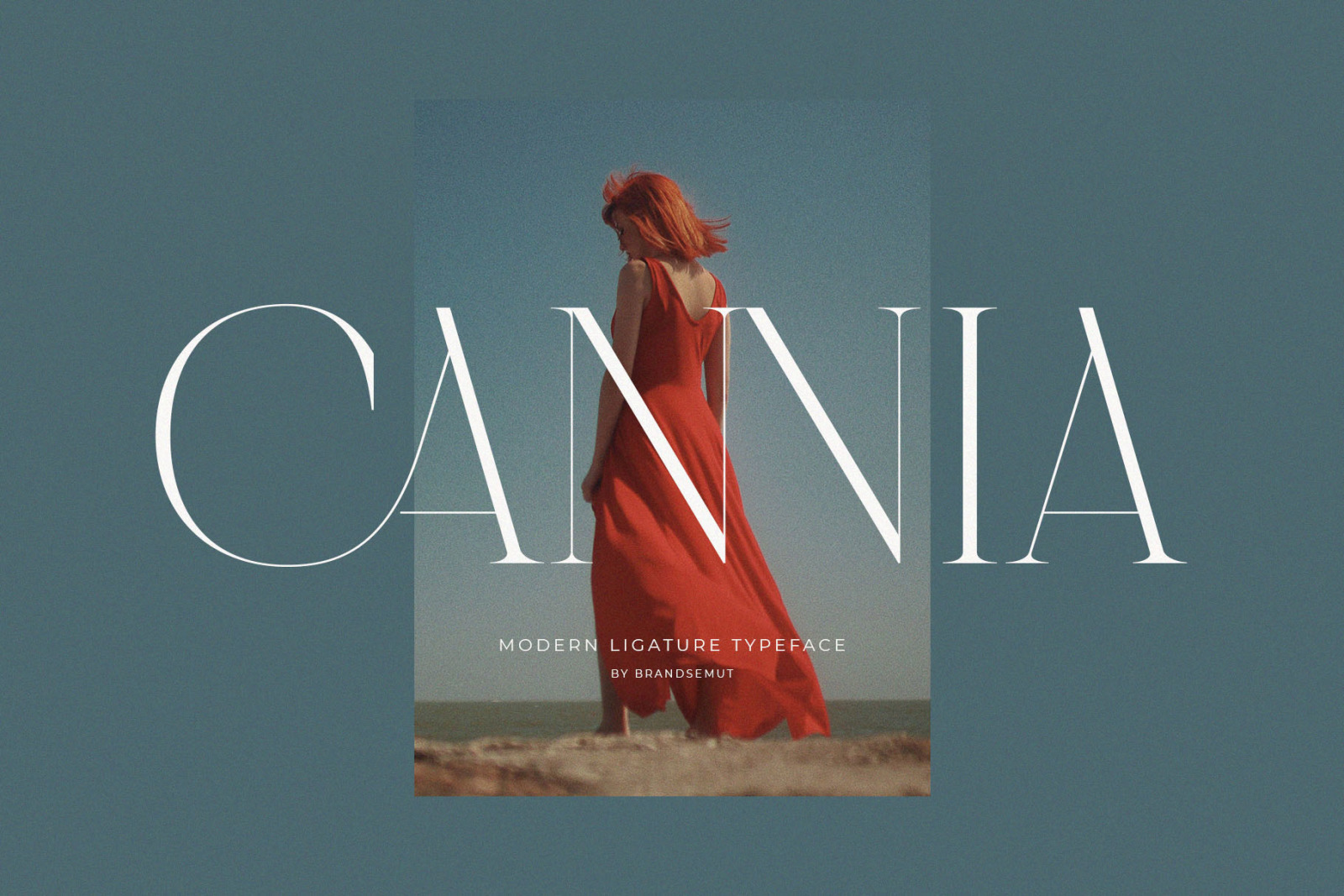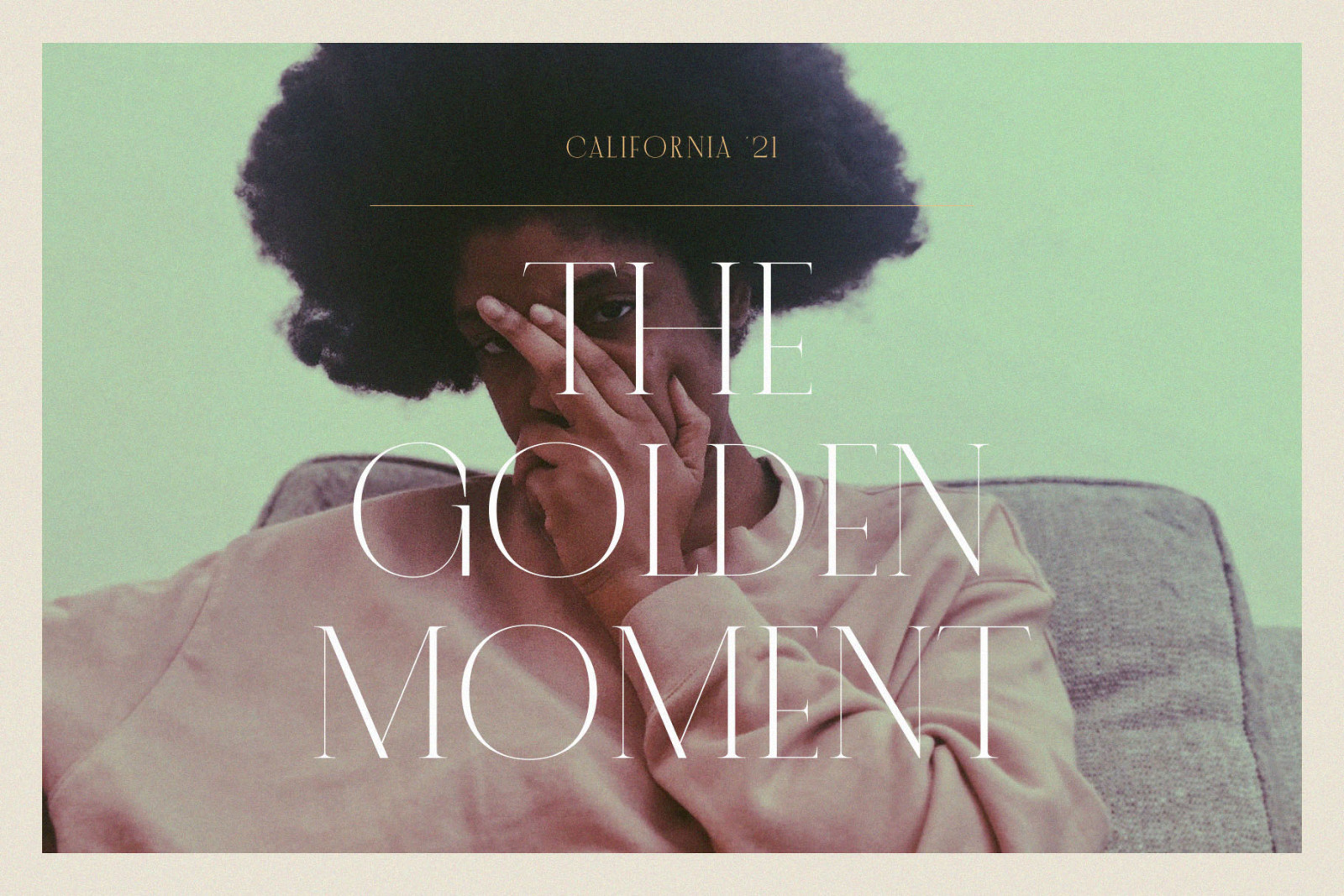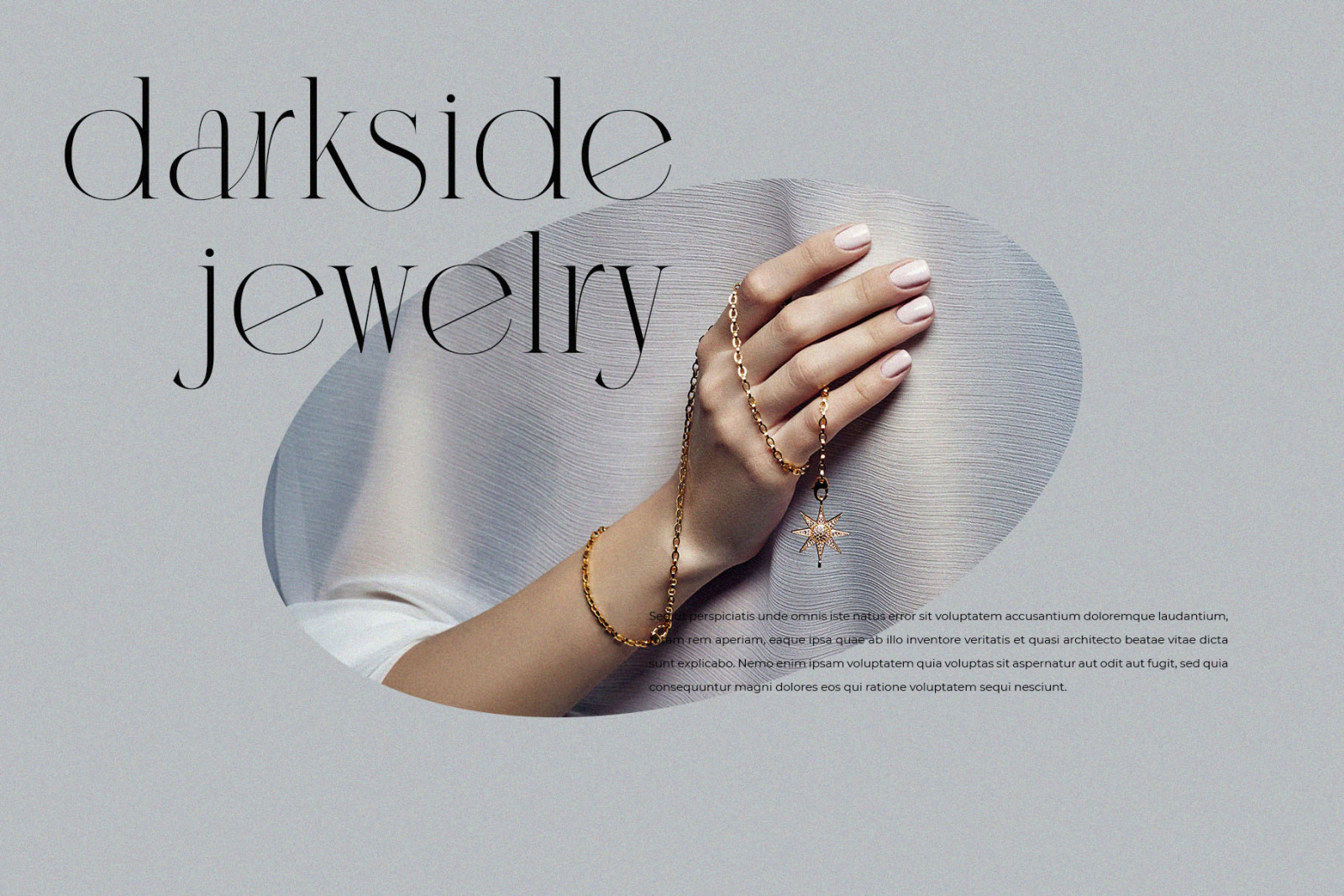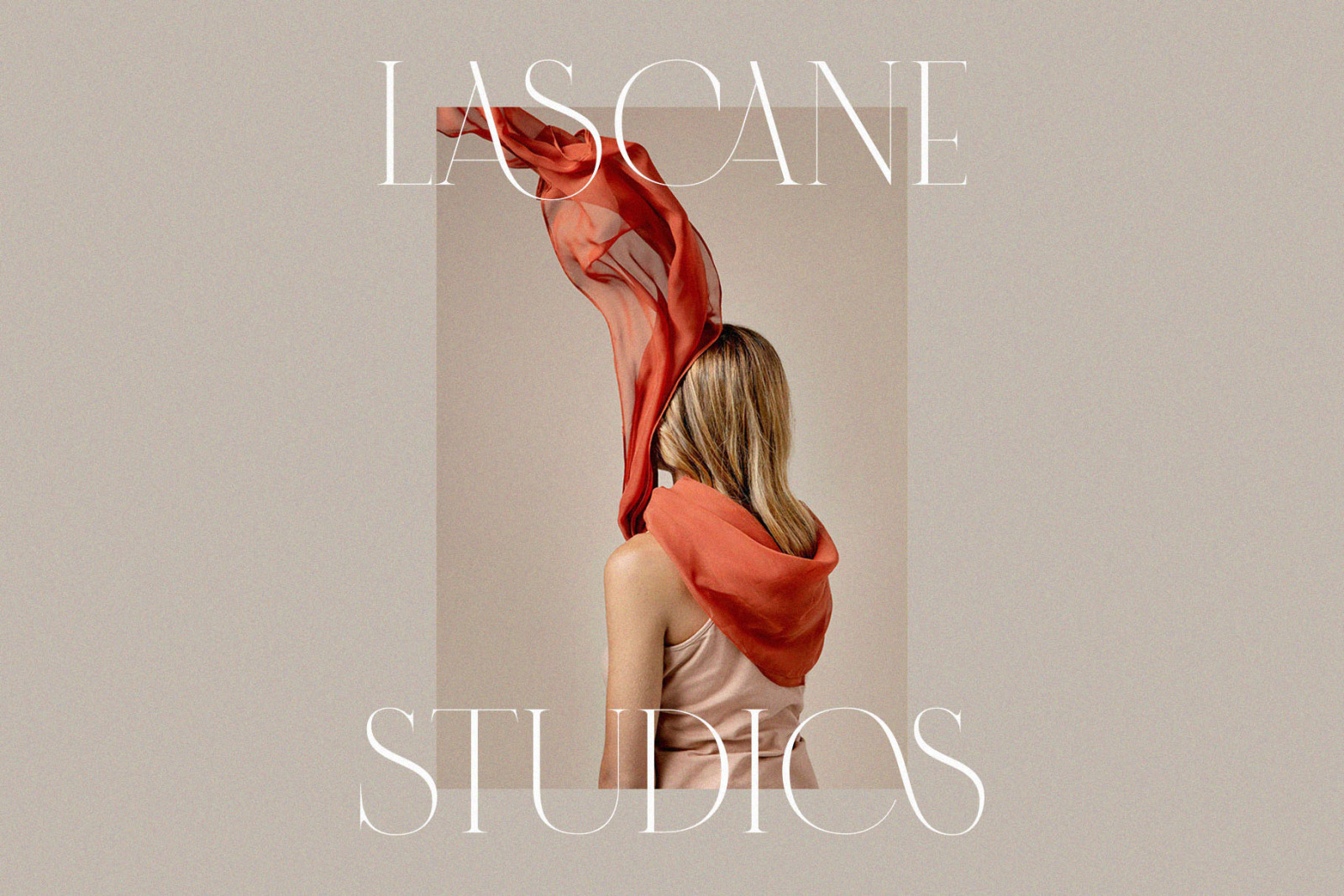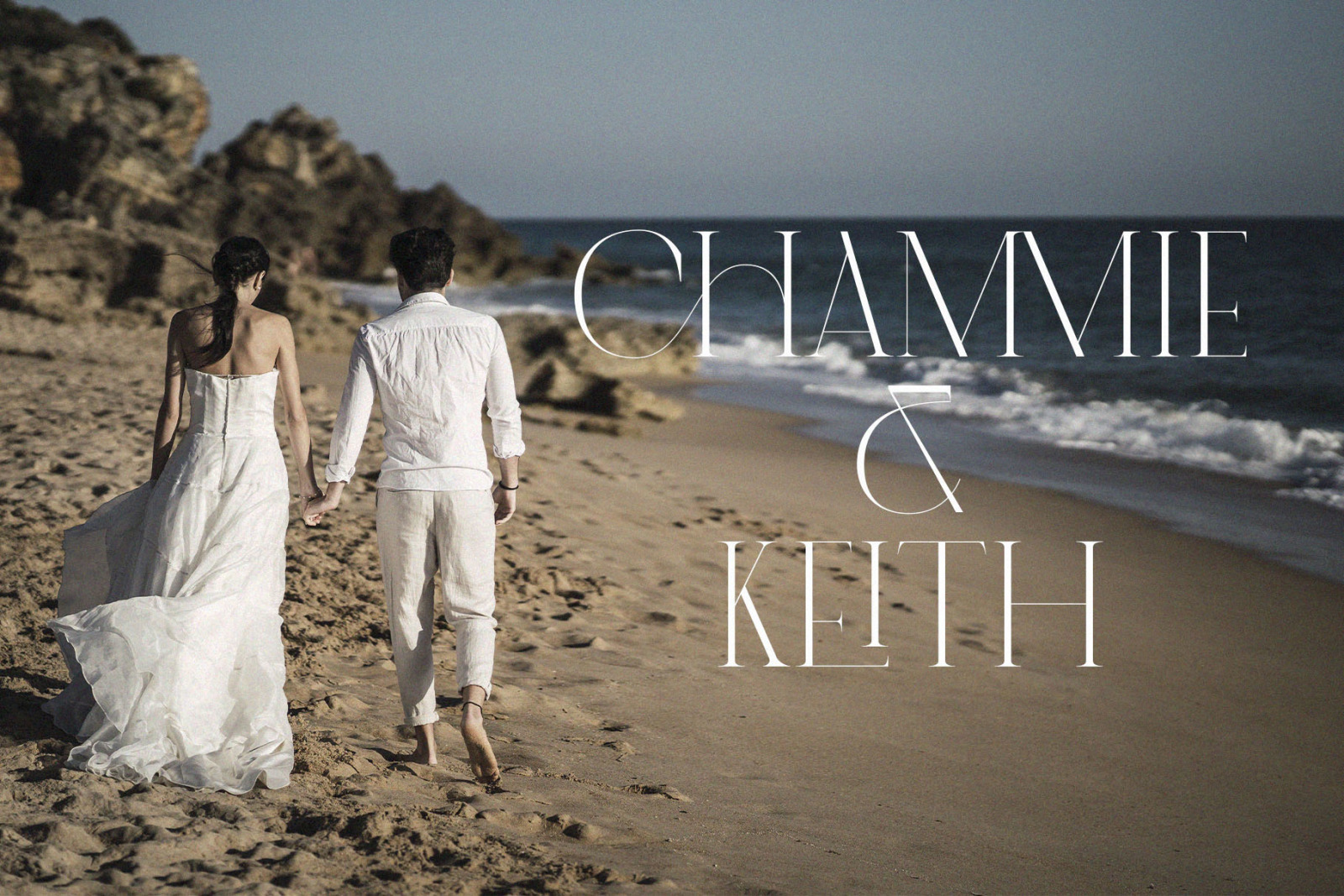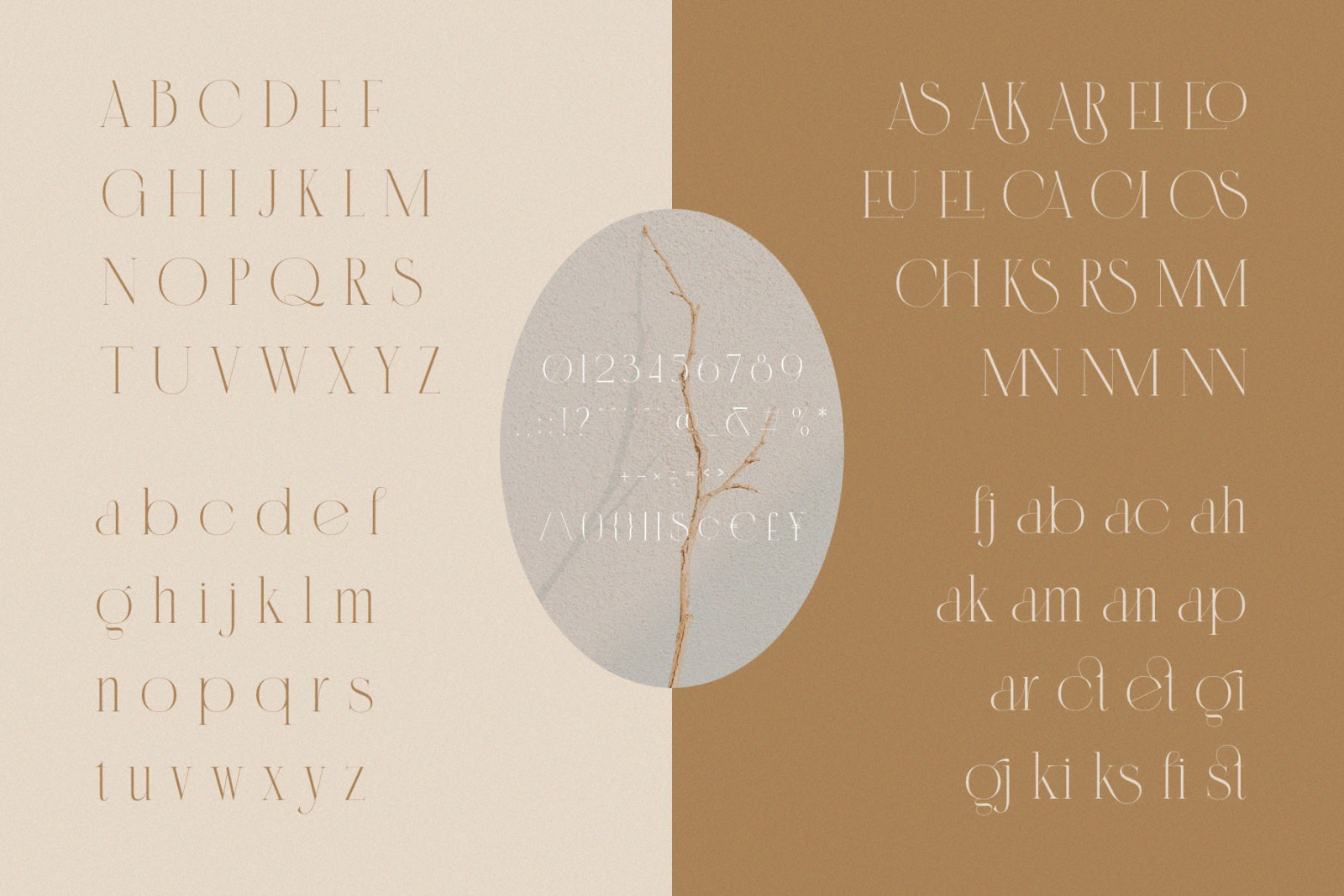
Cannia || Ligature Typeface
Introducing our new "Cannia", Modern ligature typeface with Unique, Classy and Stylish. Is perfect for branding, logos, invitation, master heads, and more.
Arlita Features :
- Ligatures
- Multilanguage
- Alternates